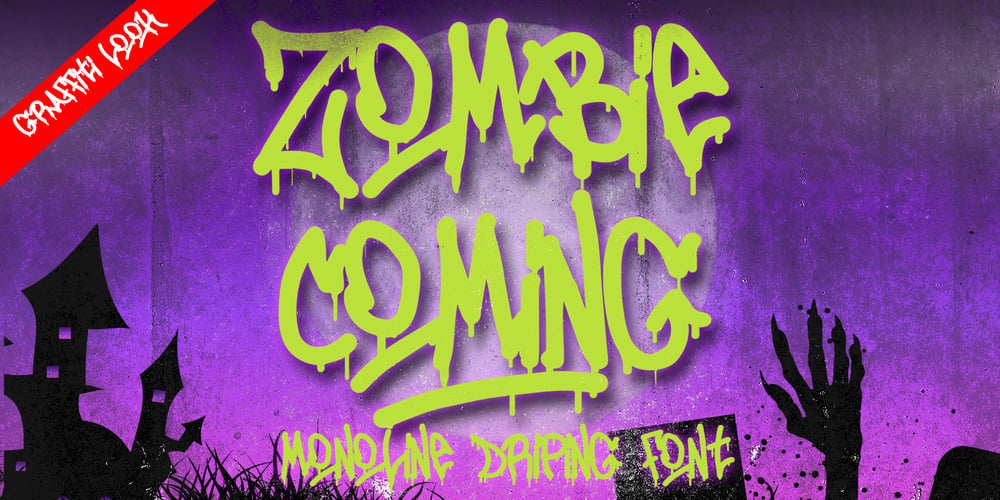
Zombies Coming Graffiti
Zombies Coming Graffiti font
Zombies Coming Graffiti Font Family was designed by Sipanji and published by Sipanji21. Zombies Coming Graffiti contains 2 styles and family package options. Zombie Coming is a display font with a monoline Dripping graffiti style, there is some swash for your awesome design. It will elevate a wide range of design projects to the highest level, be it branding, headings, wedding designs, invitations, signatures, logos, labels, and much more!Featured : Uppercase Number and Punctuation Stylistic Alternate (Swash)